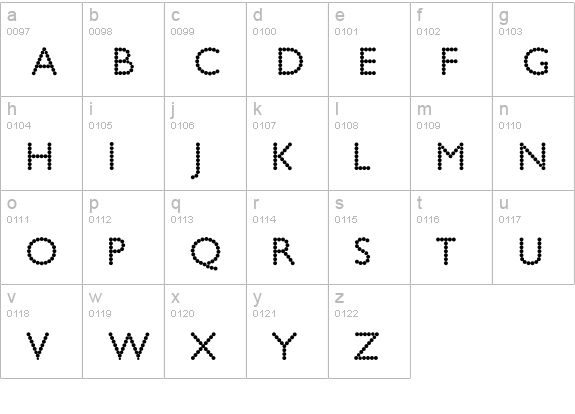
Bead Chain Font Details
The Bead Chain font is a captivating and unique typeface that exudes elegance and sophistication. Its intricate design features a series of delicate beads linked together to form each letter, creating a visually stunning effect. This font is perfect for adding a touch of glamour to your designs, whether for invitations, branding, or social media graphics. What sets Bead Chain font apart is its versatility - it can be used for both formal and casual projects, making it a truly versatile addition to your font collection. The intricate details of each bead create a sense of luxury and refinement, making this font a standout choice for premium designs. Best of all, the Bead Chain font is available for free download at FontsMarket.com, making it accessible to all designers looking to elevate their projects with a touch of sophistication. Don't miss out on the opportunity to add this stunning font to your toolkit today!